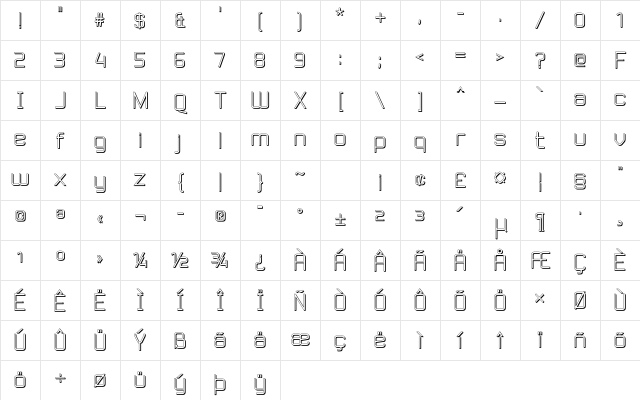
Modcon Outline Regular
Foundry: Typotheticals
Design Context for Modcon Outline
Modcon Outline is built around its visual character rather than neutral utility - its distinctive forms are designed to make an impression at display sizes.
Font Pairing: Pair with a clean neutral sans-serif for body copy to let Modcon Outline's character lead without overwhelming the composition.
Pro Tip: Use Modcon Outline exclusively at display sizes - it was designed to be seen, not read at length. Let a neutral companion handle body copy.